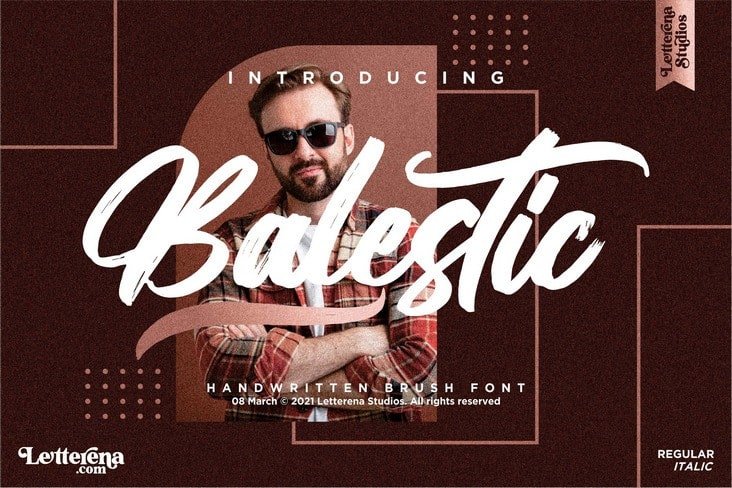
Balestic Font
Balestic Brush Font is a lovely handwritten font that has a distinctive character that is very thick and elegant to use. Suitable for any projects such as: logos, branding projects, homeware designs, product packaging, mugs, quotes, posters, shopping bags, t-shirts, book covers, name card, invitation cards, greeting cards, label, photography, watermark, special events, and all your other luxury projects that need a strong brush taste.